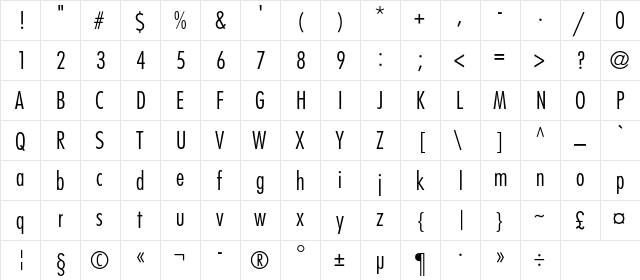
FavoritLightCondC Regular Font Preview
Design Context for FavoritLightCondC Typeface
FavoritLightCondC takes a measured approach to typography — its balanced proportions and neutral character make it a reliable workhorse for both digital and print work. Its slender proportions lend an understated elegance to any composition. Its narrow stance lets it pack a punch even in space-constrained designs.
Pro Tip: Pair FavoritLightCondC with a font of contrasting weight or personality to build a more expressive typographic hierarchy.